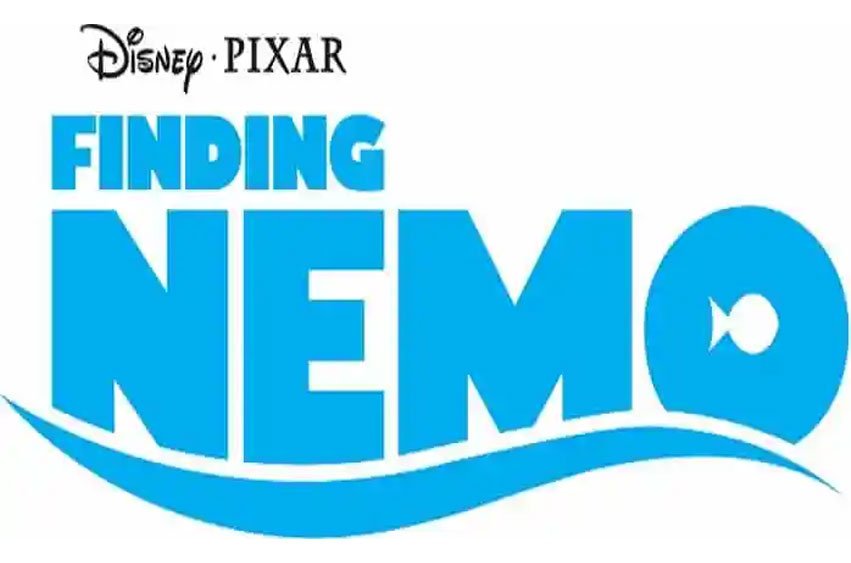
Findet Nemo Font further by Filmfonts as a Disney font that specifically used for the movie, it comes with a premium quality and can be downloaded for free for personal use, it includes both the uppercase letters and some of the fins and special characters.
With the help of this version, one can use both the letters of upper and lowercase, as well as some distinctive symbols.